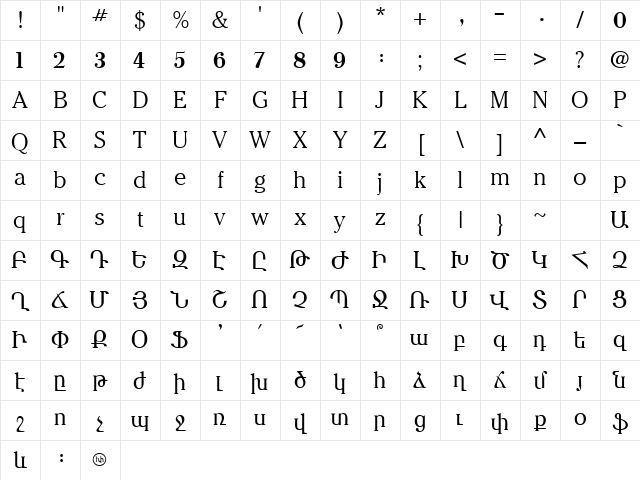
ArmenianMaralSSK Regular
Design Context for ArmenianMaralSSK
ArmenianMaralSSK is a composed and adaptable typeface that performs quietly and consistently across a wide range of design contexts.
Pro Tip: Use ArmenianMaralSSK in both headline and body roles to test its range before committing to a single application.